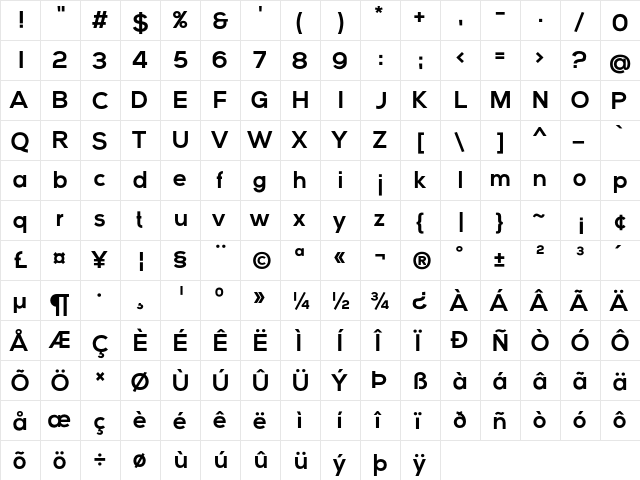
Vice City Sans Regular
| Foundry | WOLVE |
| Designer | WOLVE |
Design Context for Vice City Sans Typeface
Vice City Sans takes a measured approach to typography — its balanced proportions and neutral character make it a reliable workhorse for both digital and print work.